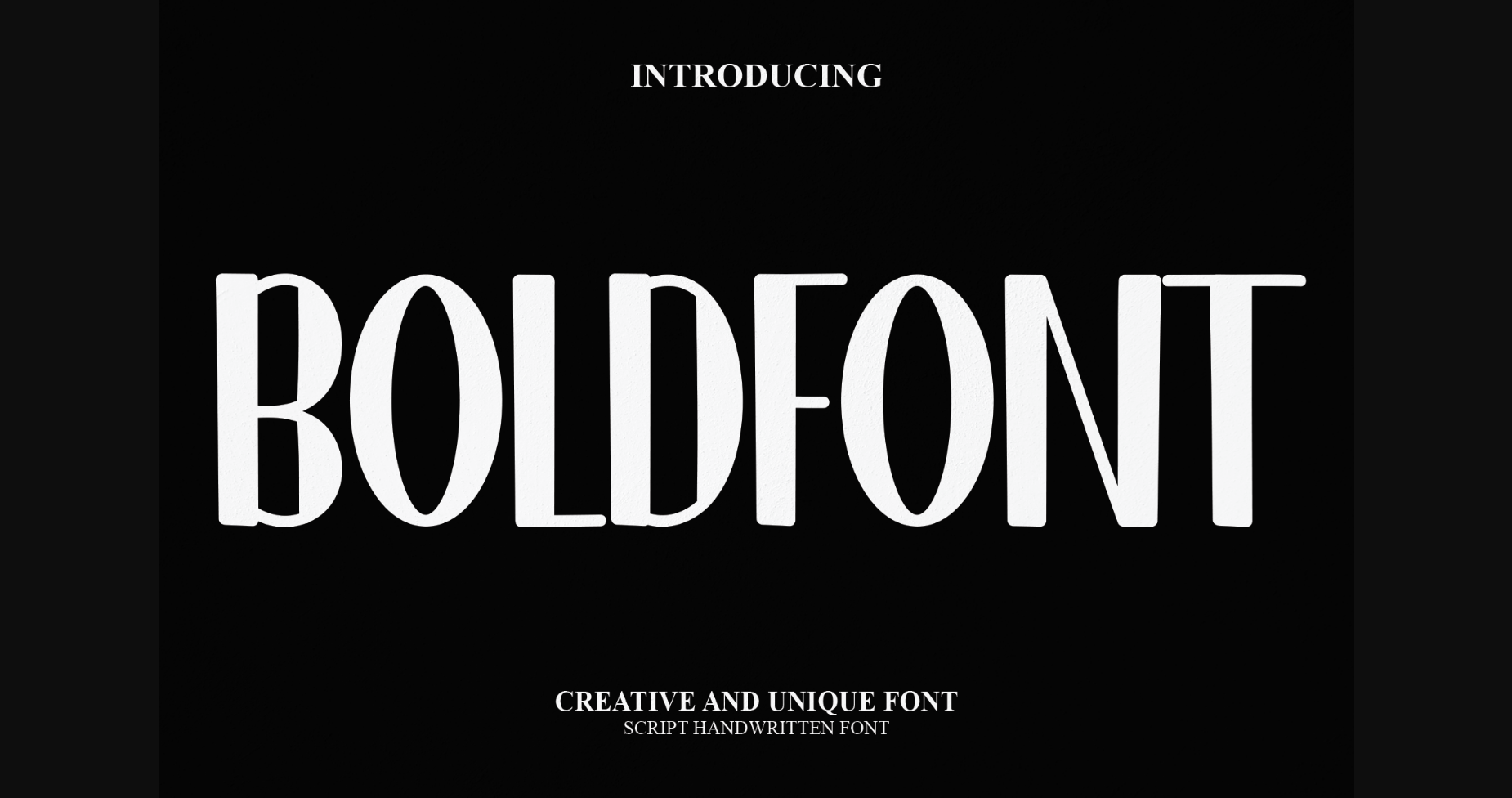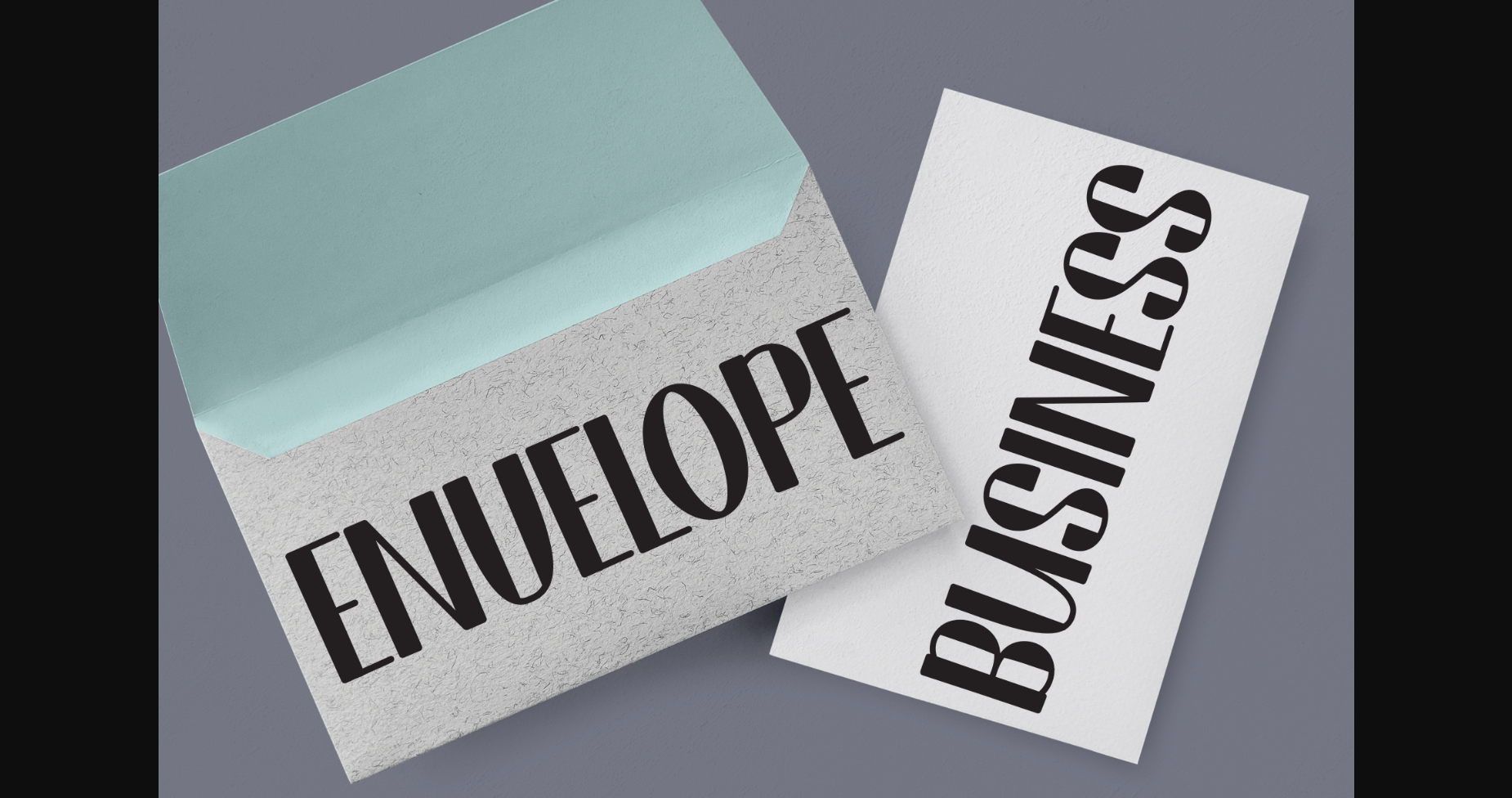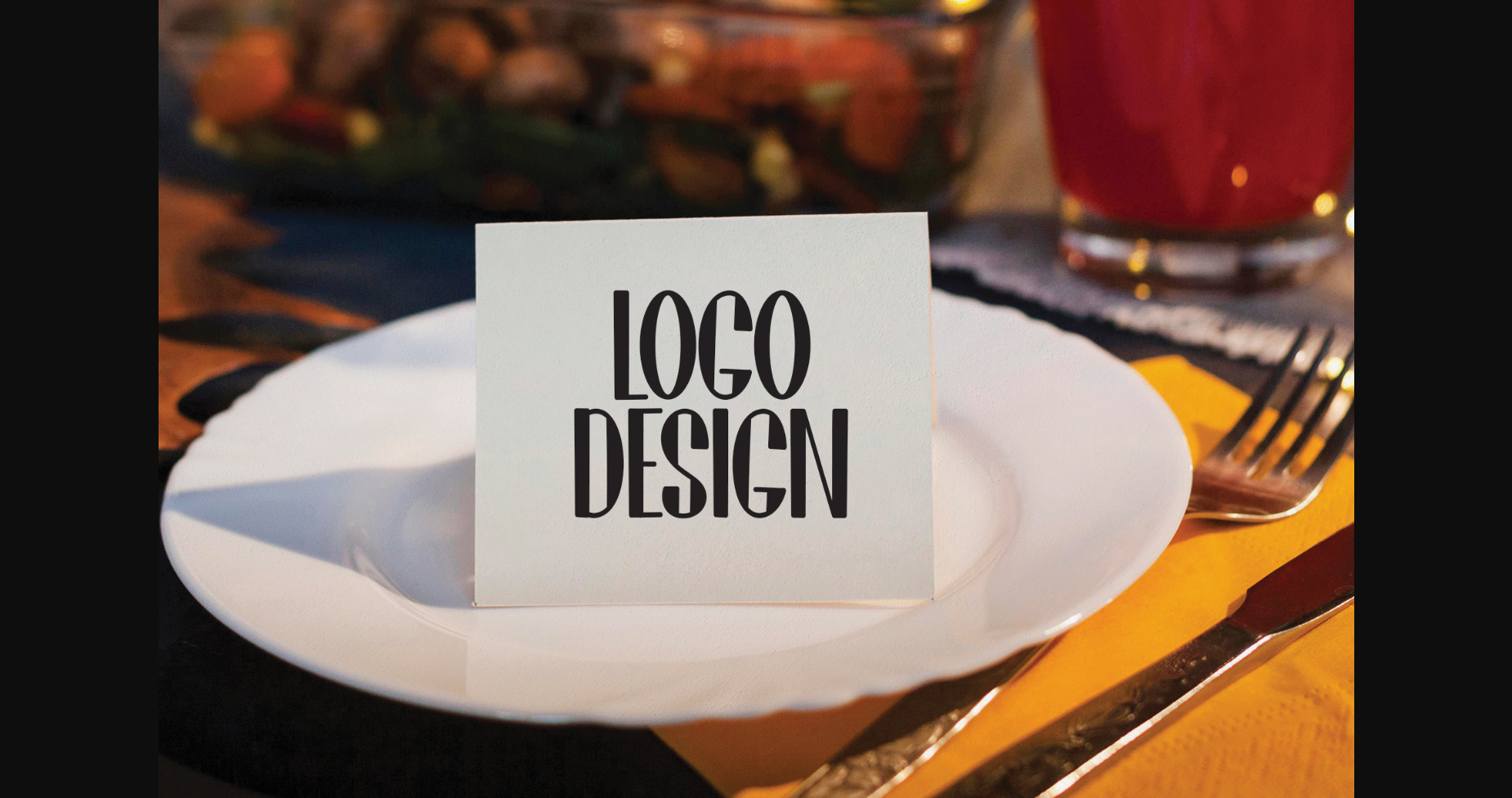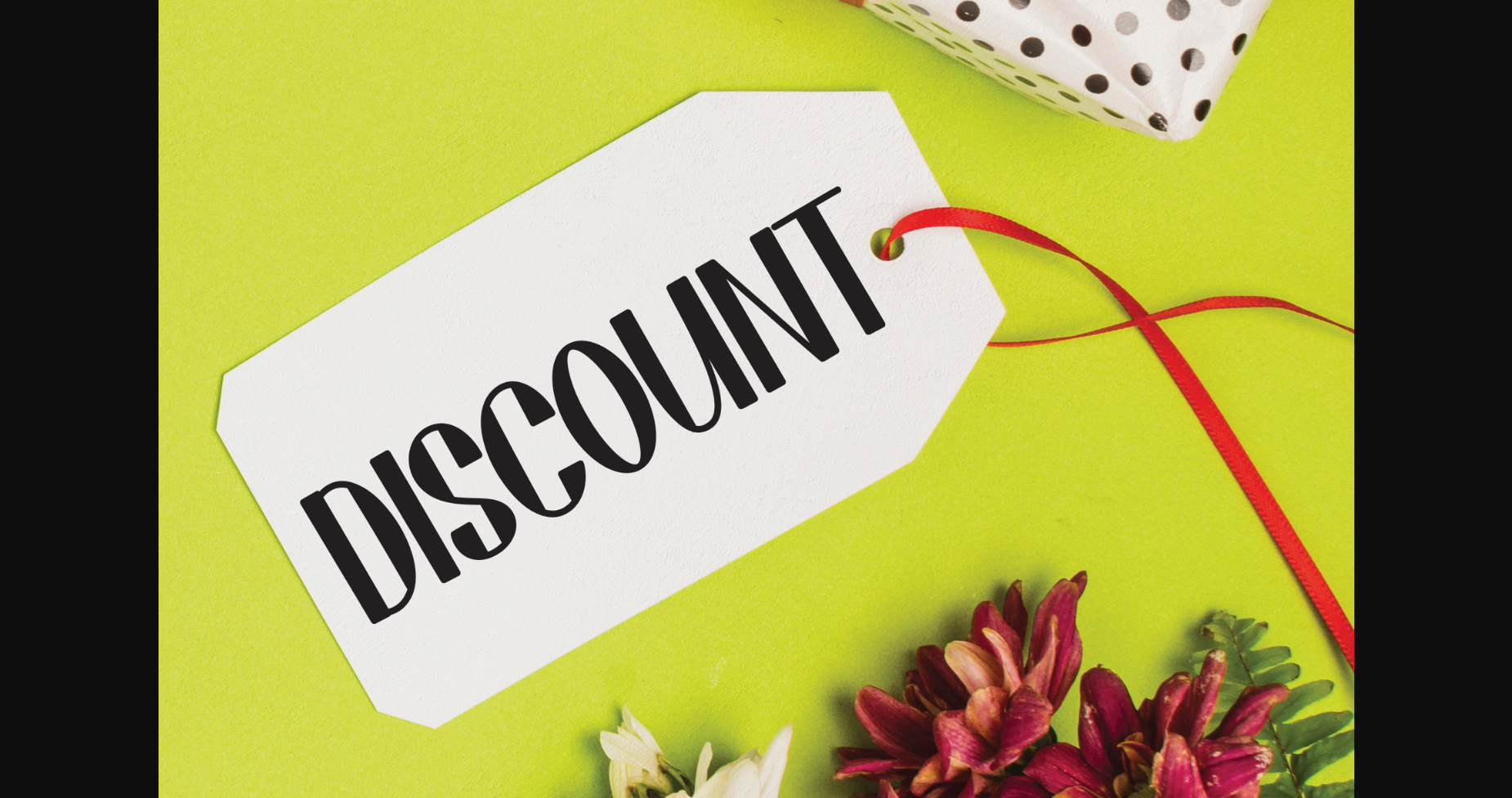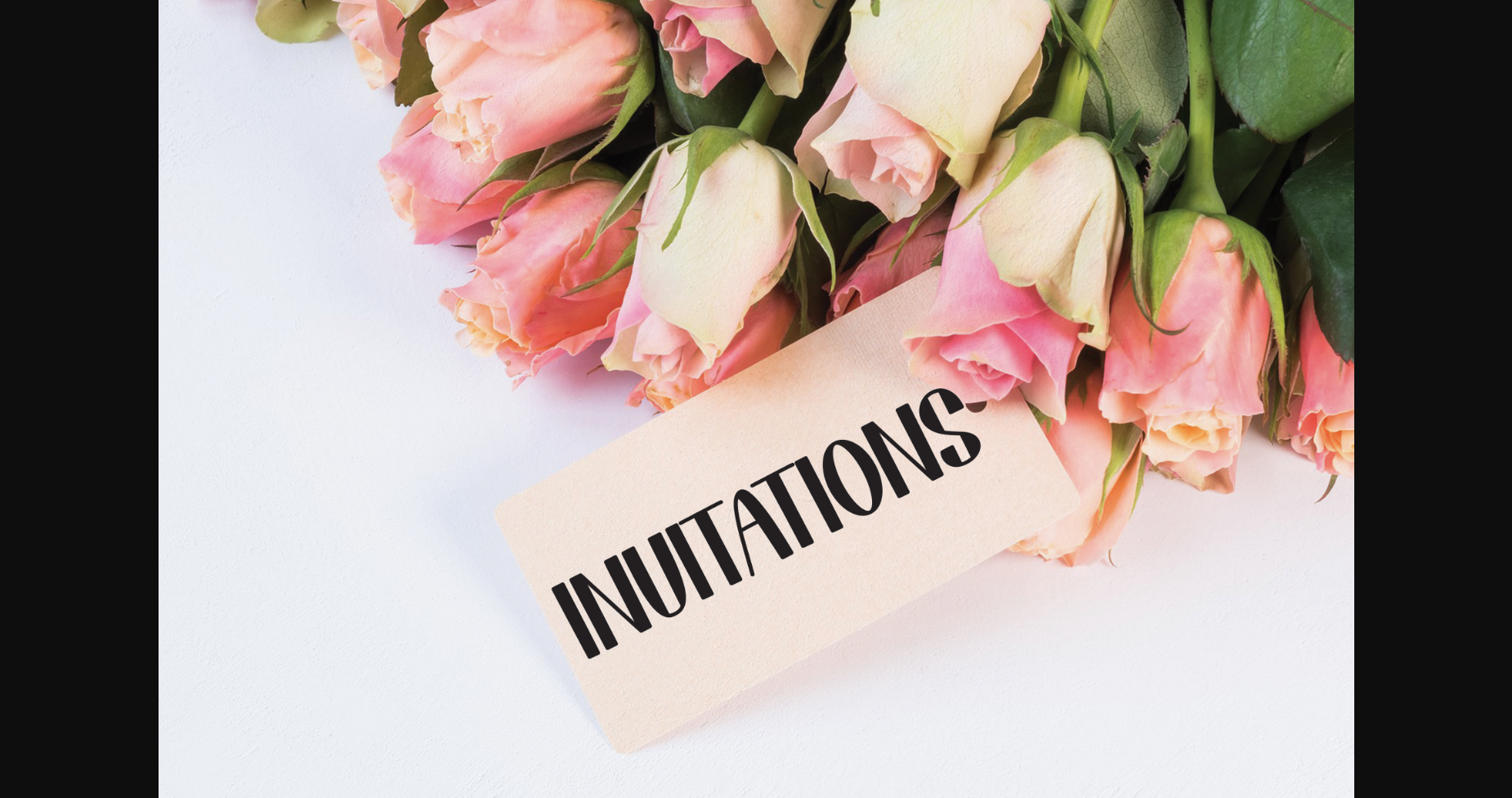
Bold Font
About Bold Font
This is a beautiful and bold sans serif font perfect for wall hangings, wedding invitations, social media post logos, advertising, product packaging, product design, labels, photography, watermarks, invitations, stationery, and any project that requires impressive typography.